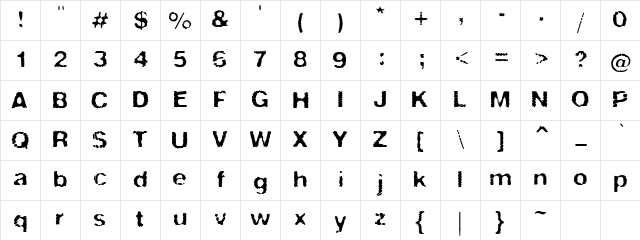
Sira Regular
Design Context for Sira Typeface
Sira takes a measured approach to typography — its balanced proportions and neutral character make it a reliable workhorse for both digital and print work.
Pro Tip: Use Sira in both headline and body roles to test its range before committing to a single application.